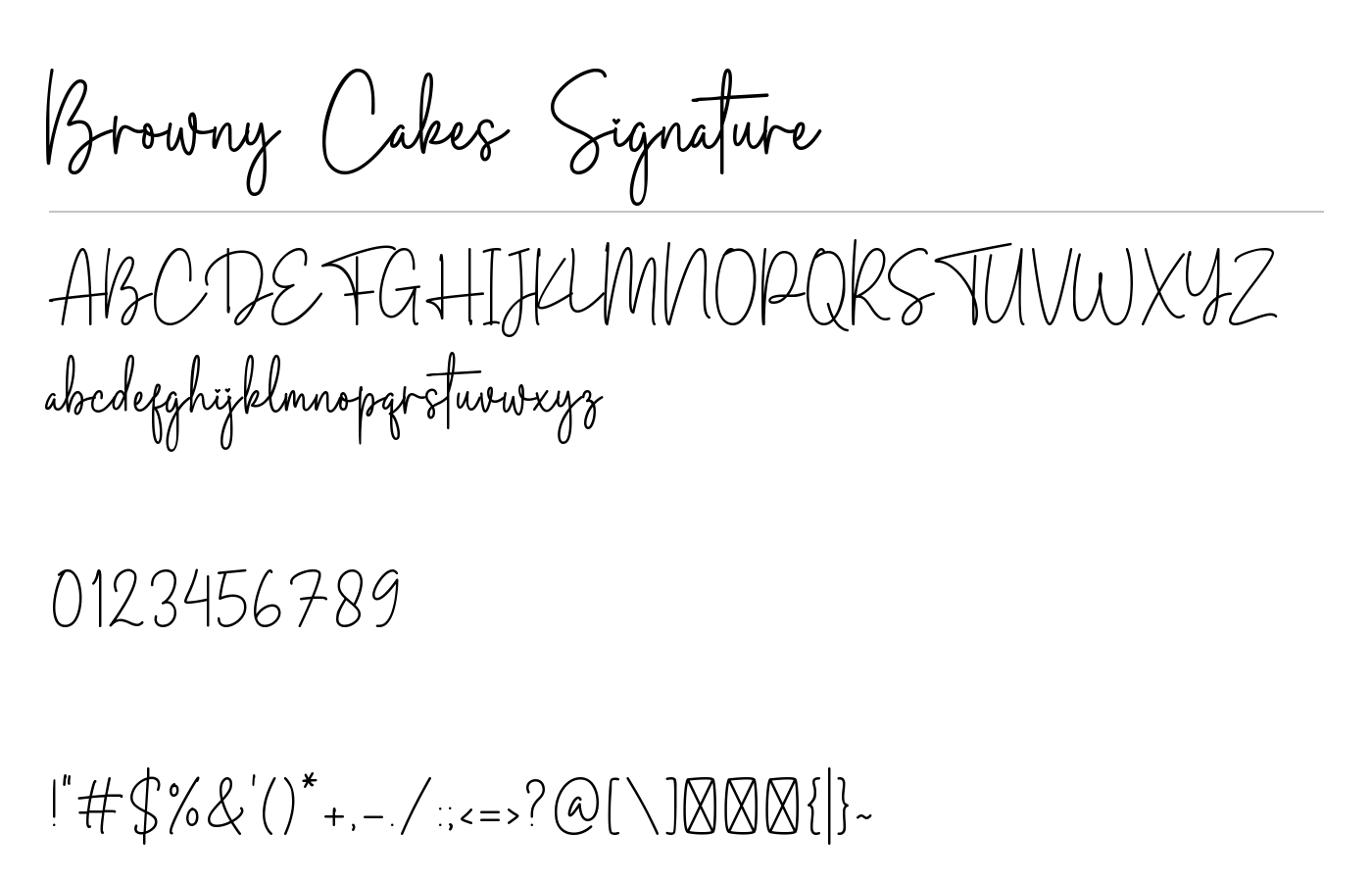
Browny Cakes Signature is a delicate, handwritten script font with a light, airy feel and tall, slender letterforms. Its casual yet elegant style, featuring smooth, organic strokes and playful loops, makes it perfect for personal branding, wedding invitations, and lifestyle projects seeking a charming, approachable touch. This font works well in headlines or short phrases where its unique signature look can truly shine.
Browny Cakes Signature Font
About Browny Cakes Signature Font
| Font family | Browny Cakes Signature Font |